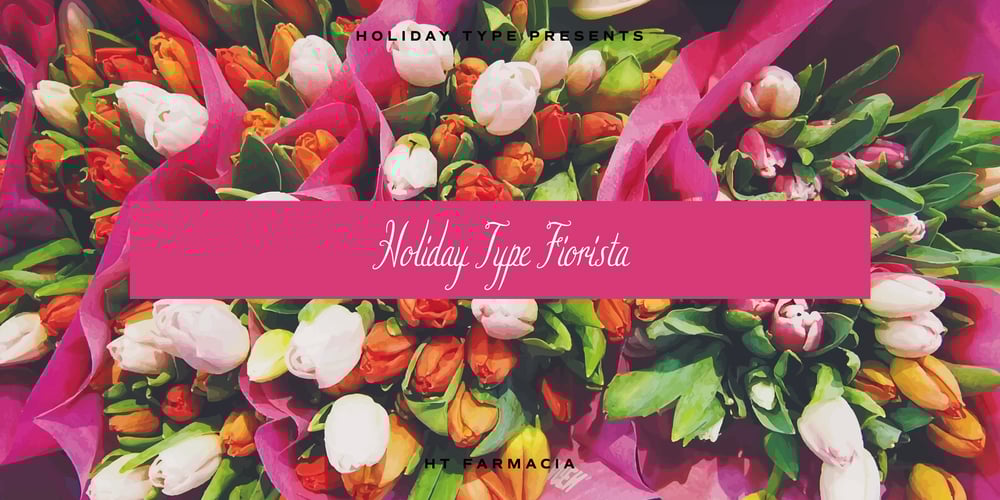
HT Fiorista Font Family was designed by Ryoichi Tsunekawa and published by Dharma Type. HT Fiorista contains 1 styles and family package options. Fiorista is a pretty brush scrip with thin and curly line. Florists works best for greeting card, wedding ceremony invitation or shop card of fashion or apparel. It could also be used for film, magazines, advertising and websites. Holiday Type Project offers retro hand drawing scripts. Inspired by retro script on shopfront lettering, wall paint advertisements in Italy around 1950s. Check out the script fonts from Holiday Type!